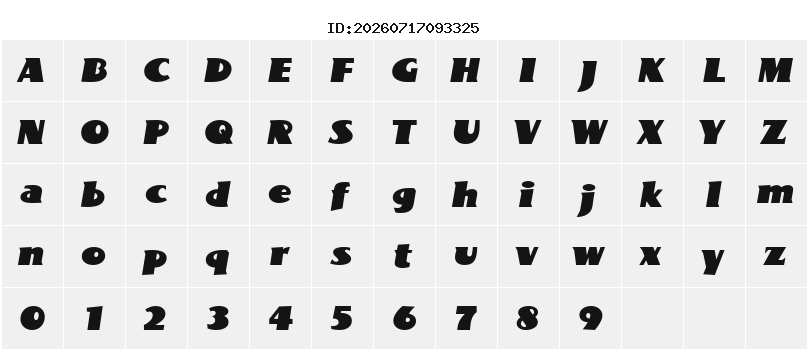
BottleKaps S ExpItalic Preview
• Font Name: BottleKaps S ExpItalic
• Full Font Name: BottleKaps S ExpItalic
About BottleKaps S ExpItalic.ttf
BottleKaps S ExpItalic.ttf is a modern, elegant sans-serif font designed for ultimate readability and visual harmony. Perfect for branding, headlines, web design, and print materials.